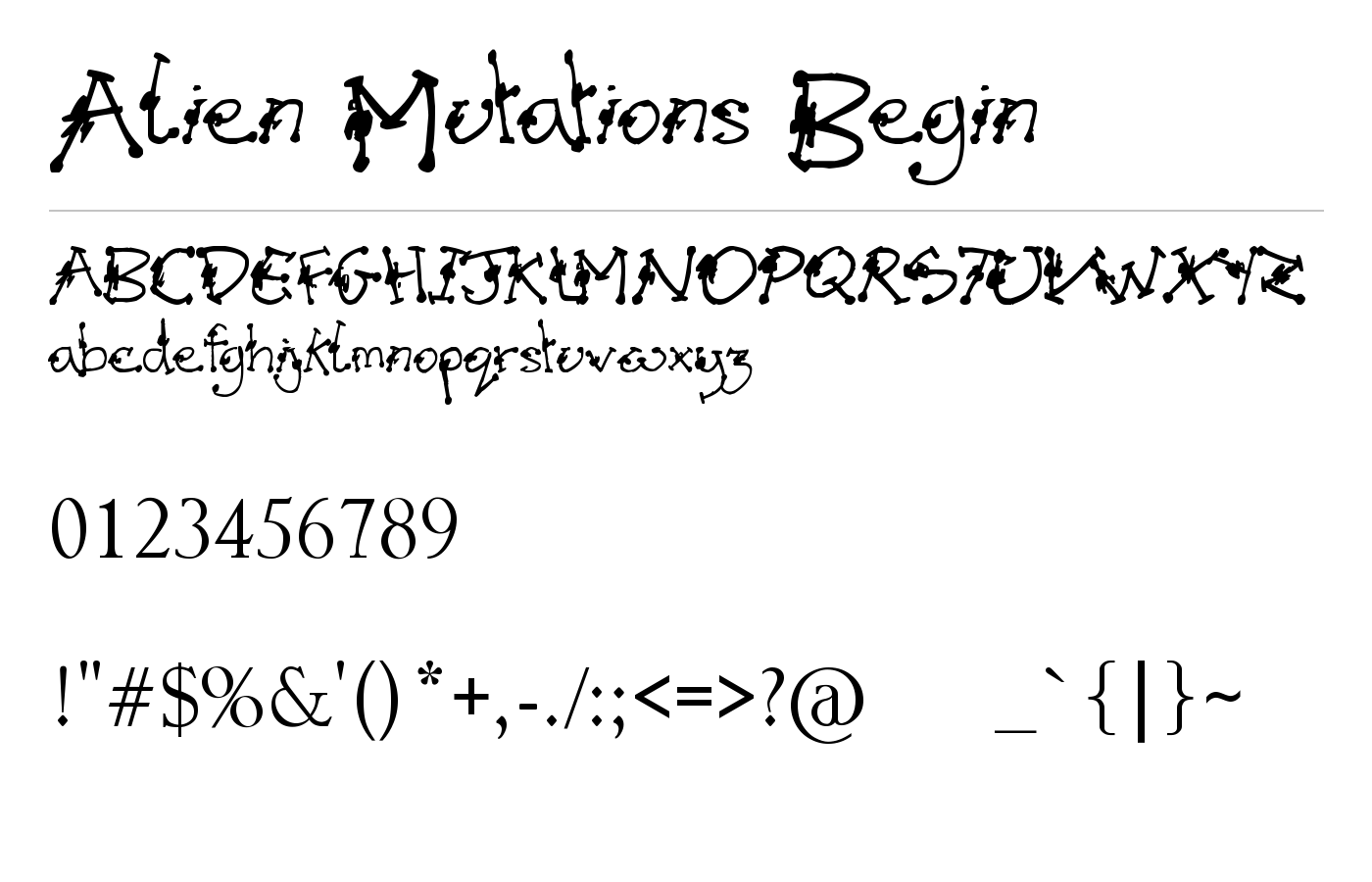
Alien Mutations Begin is a playful, hand-drawn script font with irregular, jagged strokes that give it an eerie, alien-like appearance. Its quirky, organic shapes make it perfect for creative projects needing a unique, spooky vibe, such as Halloween themes, sci-fi titles, or fun branding that aims to stand out with a slightly chaotic personality. This font works best in display settings like logos, posters, and themed invitations where its distinctive character can truly shine.
Alien Mutations Begin Font
About Alien Mutations Begin Font